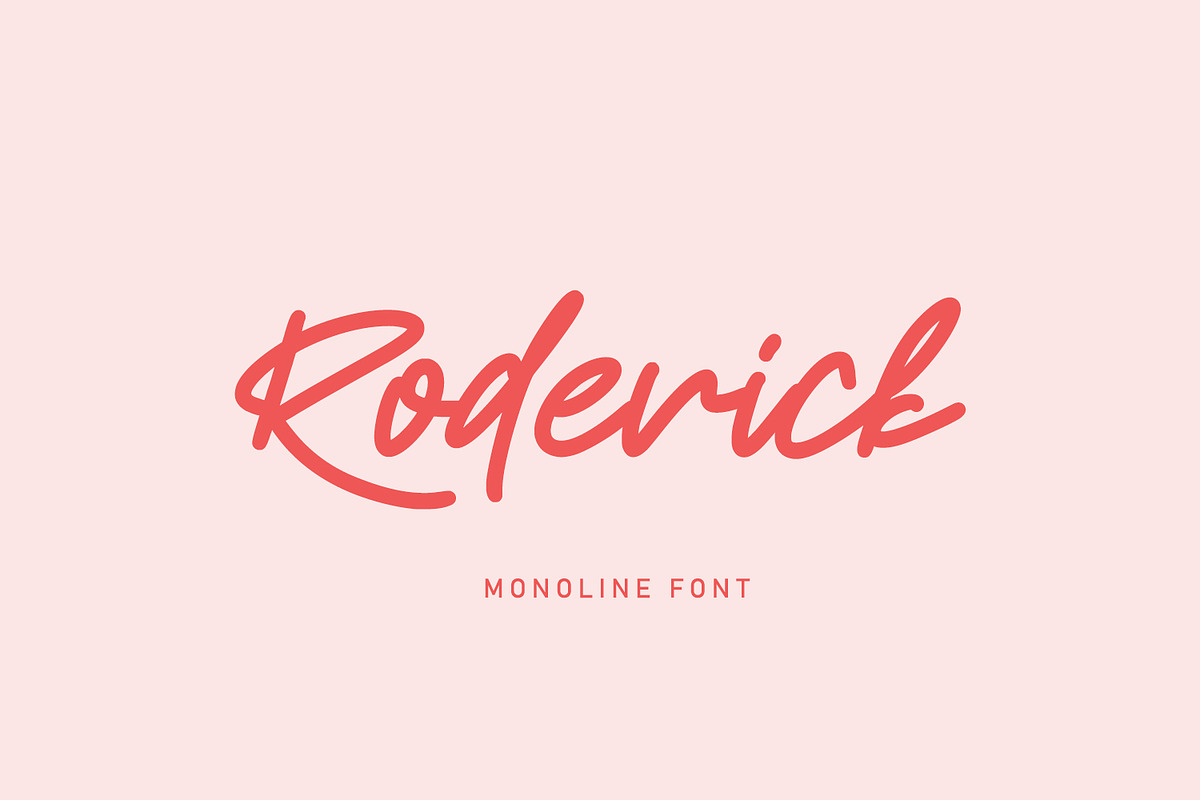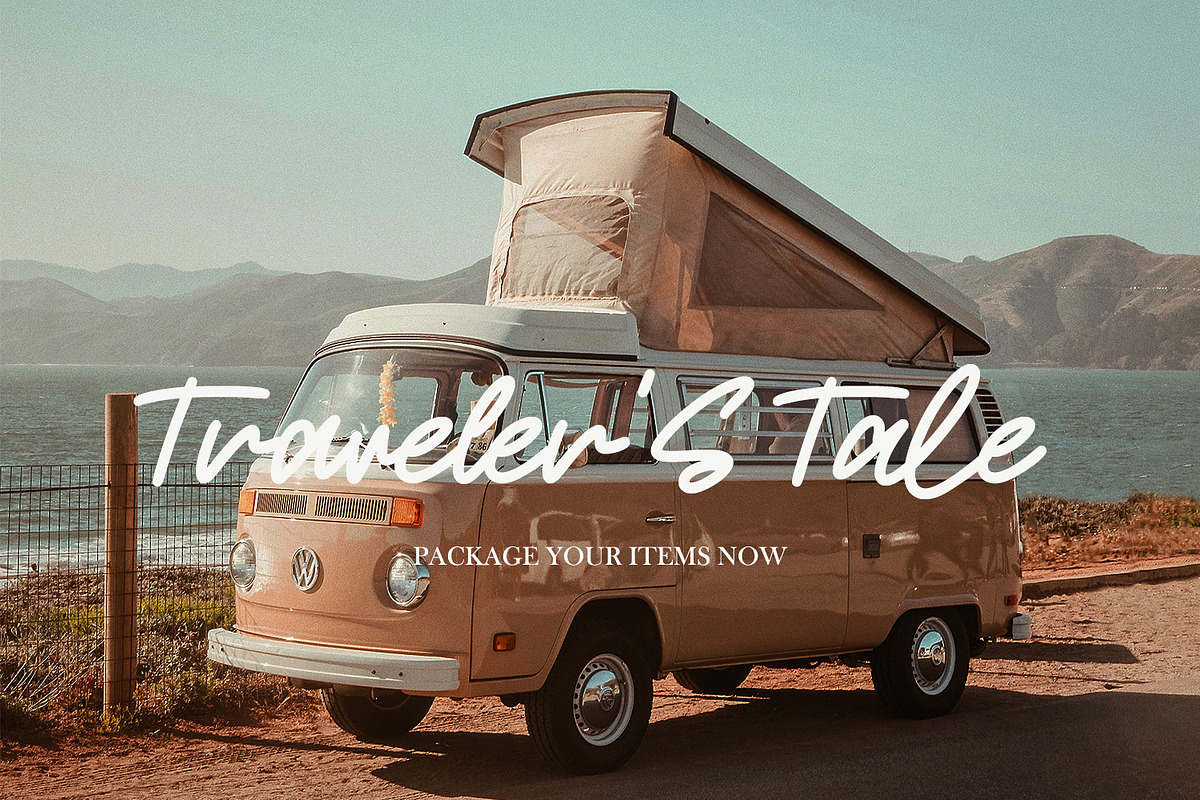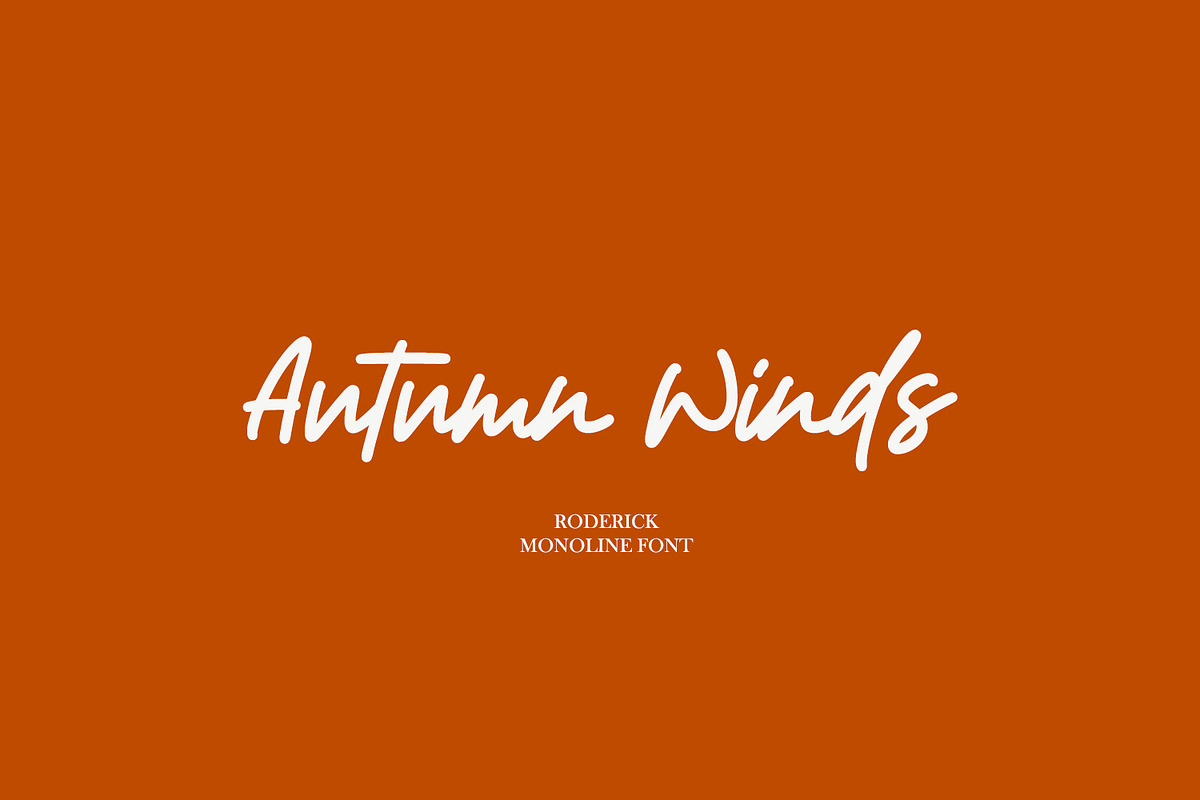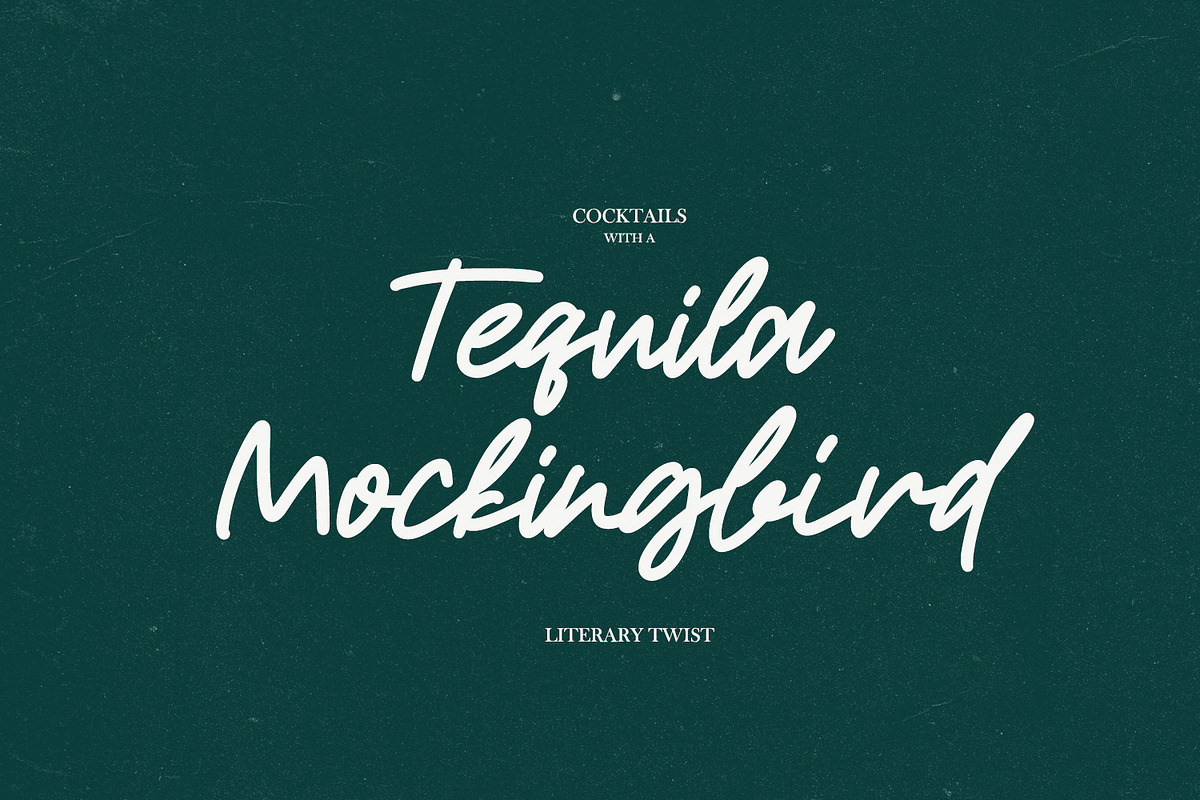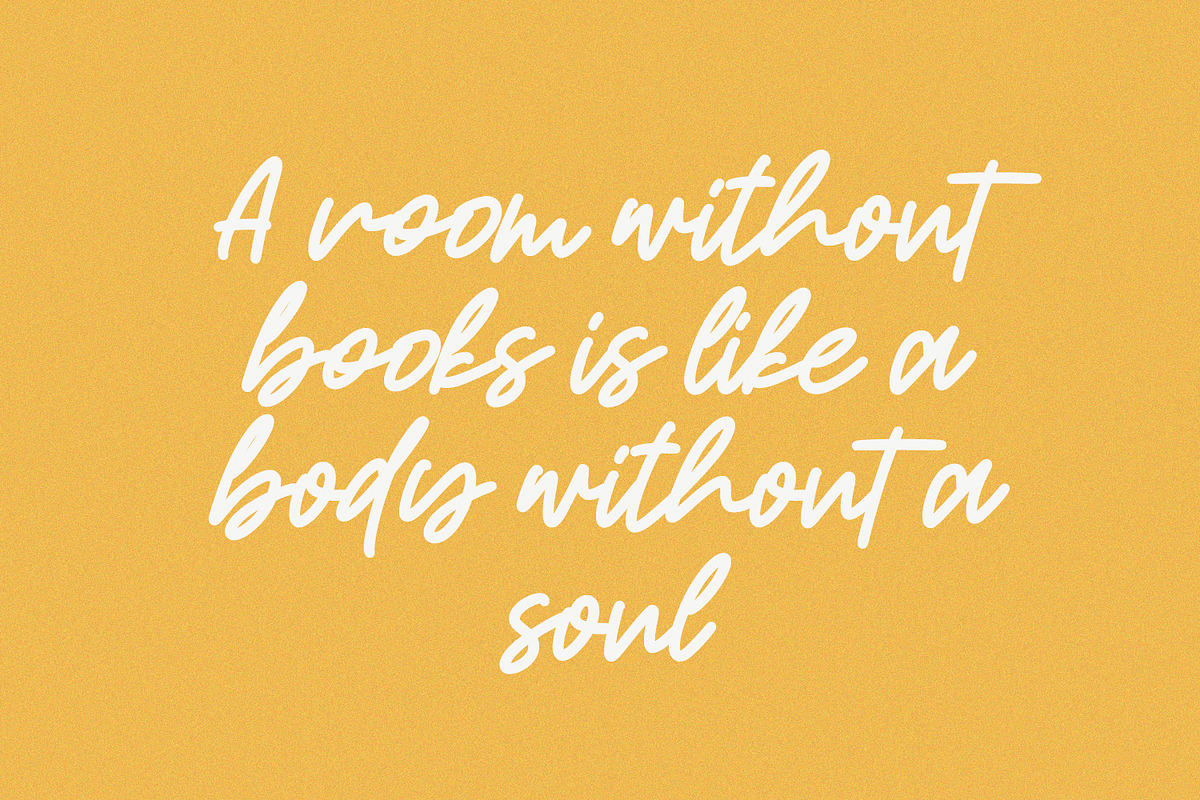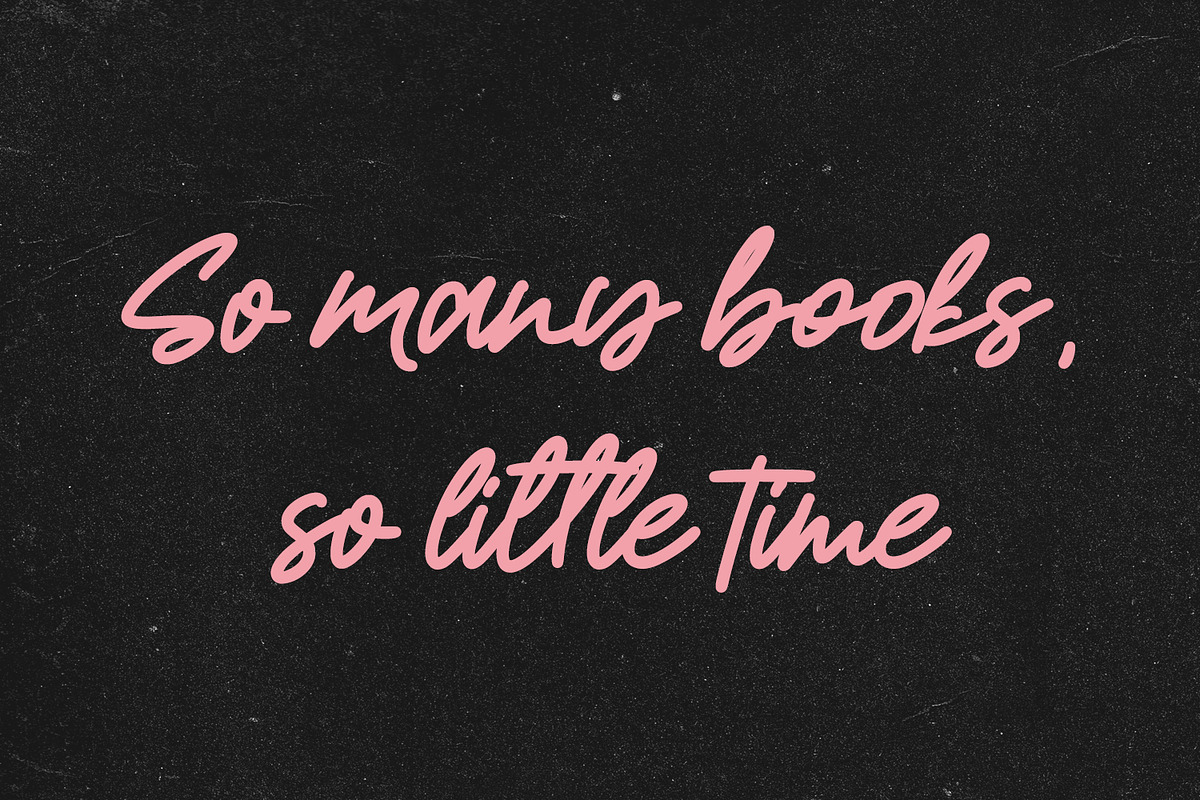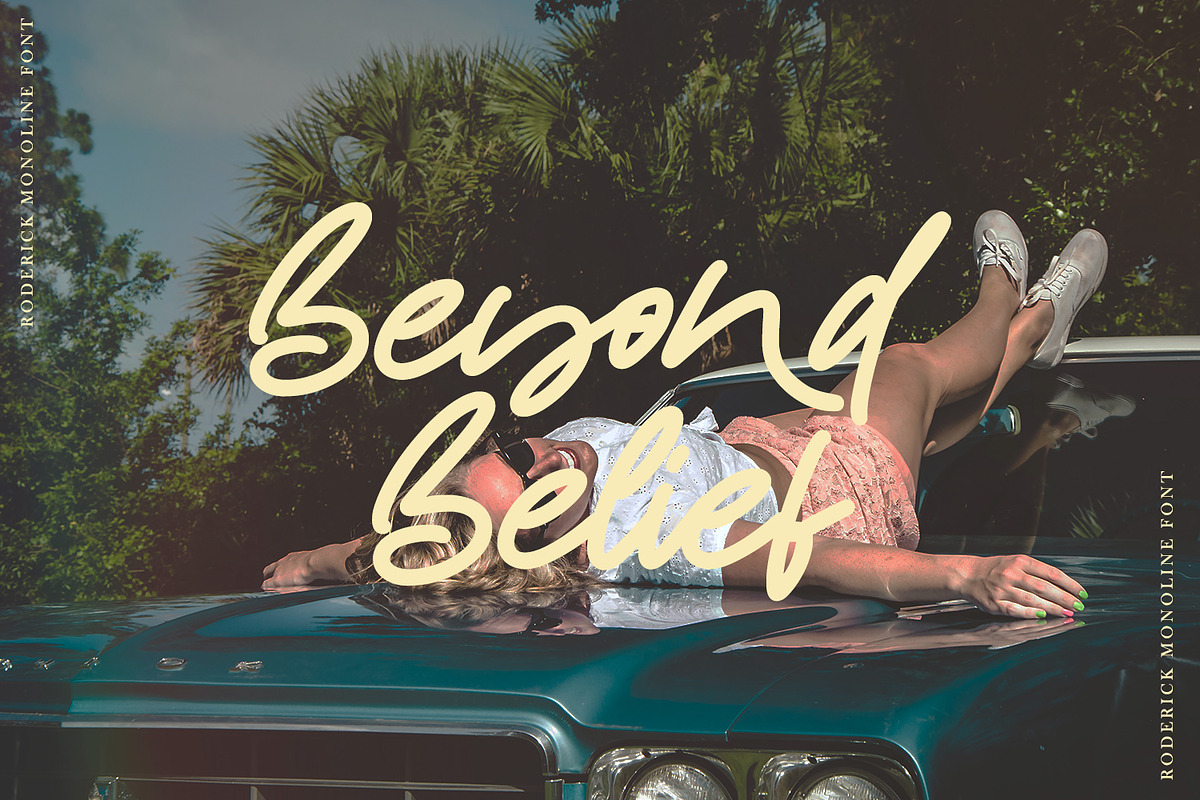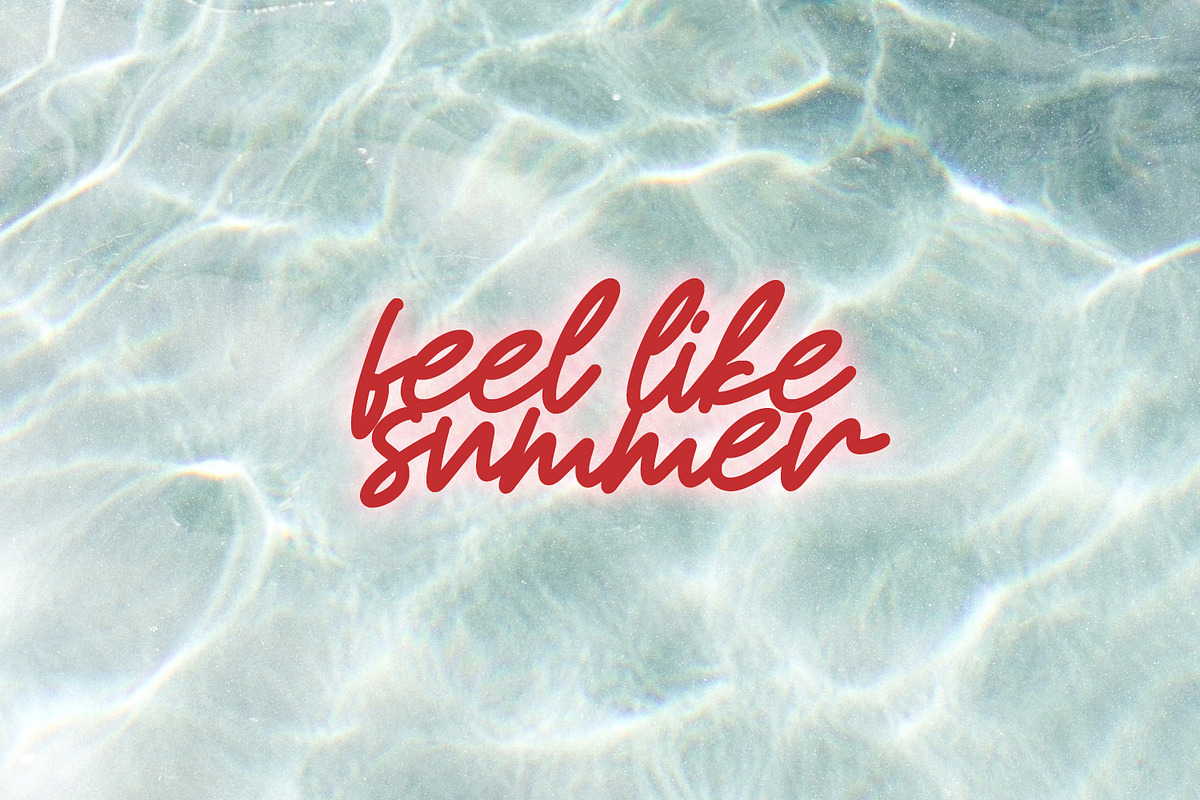
Roderick - Monoline Font
Roderick Is a retro style monoline font for you to use and your design interests be it for logos, branding names, posters, podcasts and so on. This is perfect for you all.